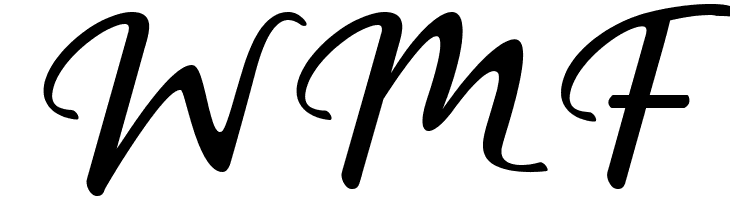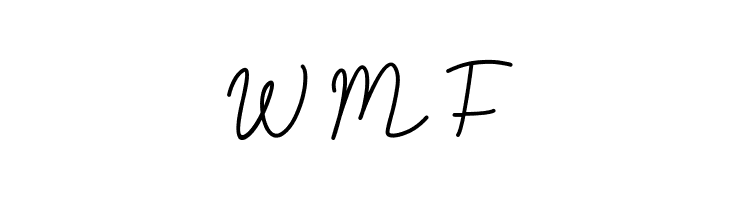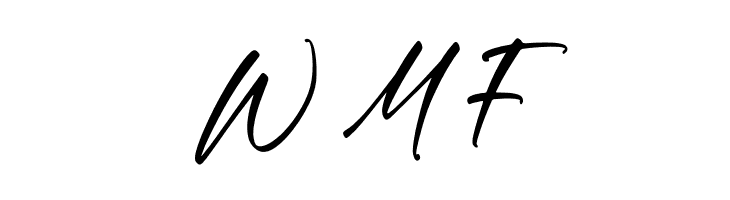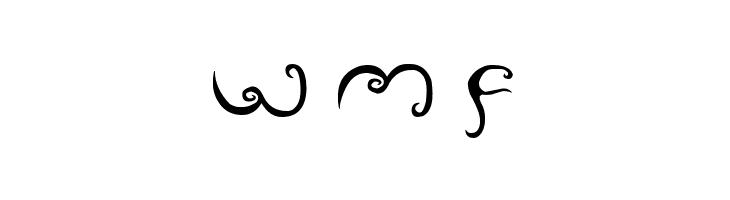
A dynamic and elegant script font with bold, flowing letterforms.
An artistic and whimsical font with gothic-inspired swirls and curves.
A sophisticated script font with elegant, flowing cursive strokes.
A flowing, cursive script font with elegant loops and a handwritten feel.
A fluid and elegant script font with natural handwriting style.
A graceful, cursive script font with connected characters and a natural handwriting style.
A lively and expressive handwritten font with fluid, dynamic strokes.
An elegant script font with intricate loops and flowing curves.